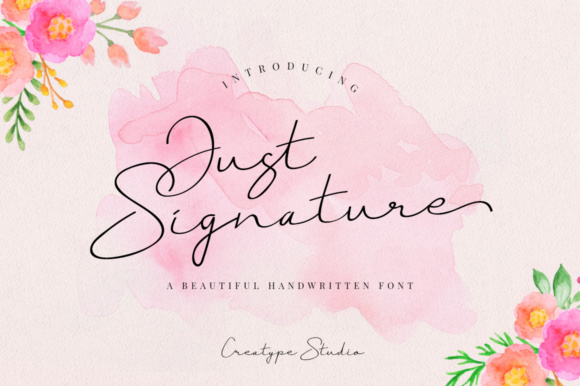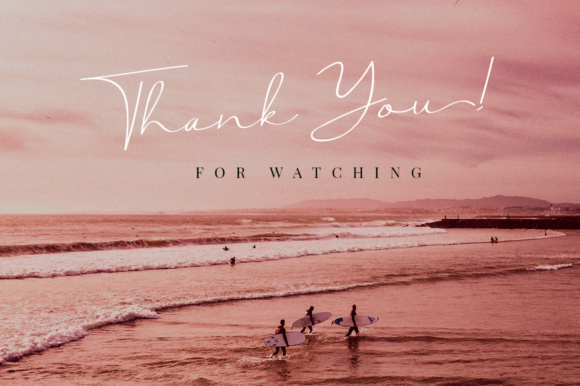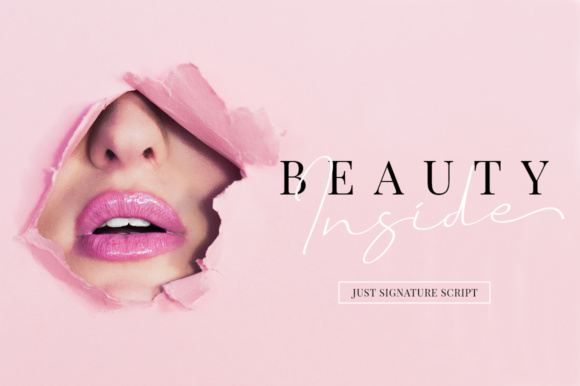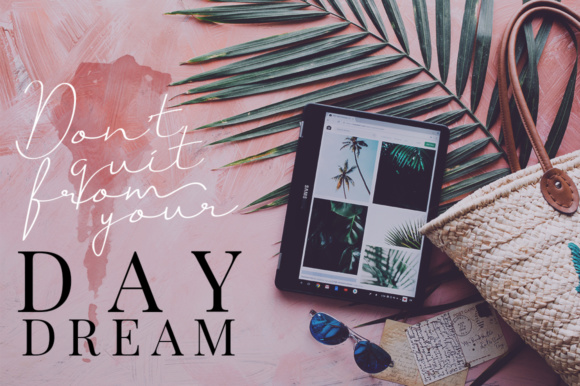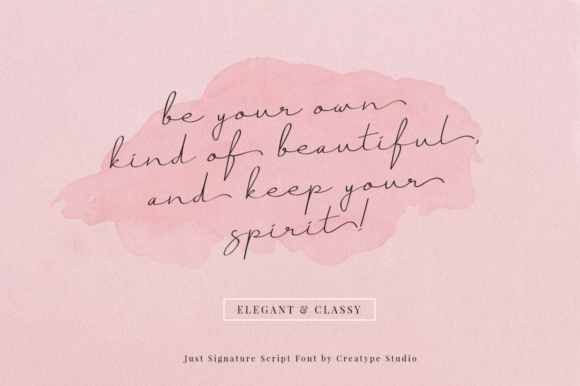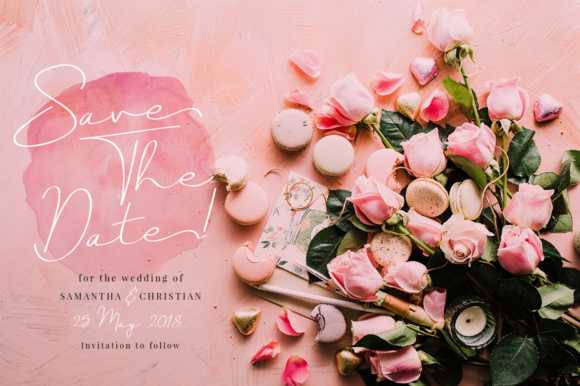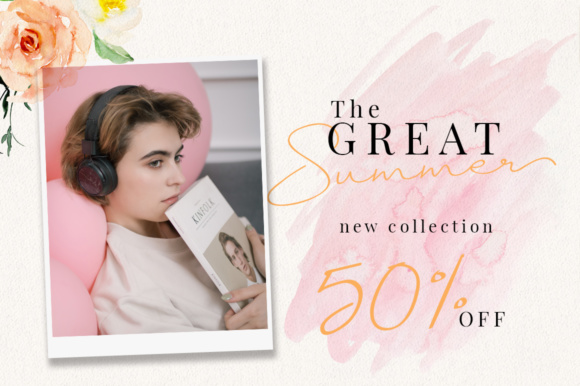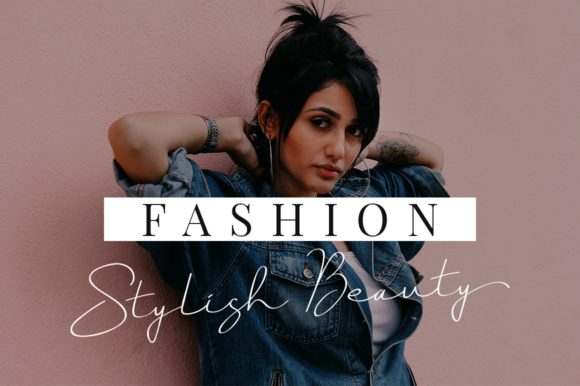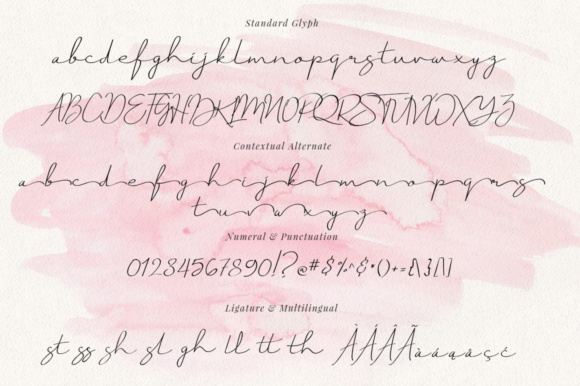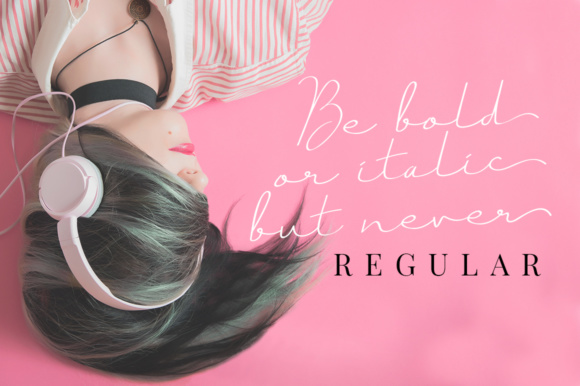
Just Signature Font
About Just Signature Font
Just Signature is a fresh and modern script, ideal for projects that need a natural yet classy look. This font is feminine and gorgeous, and works well in giving your projects a fashionable feel.